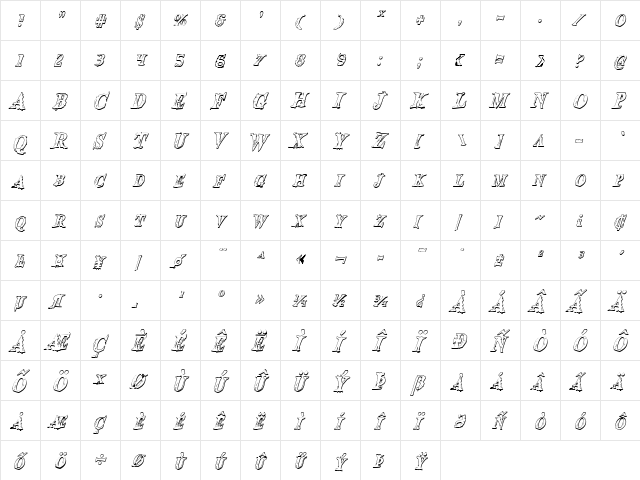
Blood Crow Shadow Condensed Italic Condensed Italic
Design Context for Blood Crow Shadow Condensed Italic Typeface
Blood Crow Shadow Condensed Italic leans into the macabre with letterforms designed to disturb and intrigue in equal measure. The dynamic lean of this cut emphasises speed and emphasis in any layout.
Perfect for anything that needs to unsettle — game titles, horror branding, and macabre invitations.
Font Pairing: Pair with a clean neutral sans-serif for body copy to let Blood Crow Shadow Condensed Italic's character lead without overwhelming the composition.
Pro Tip: Use Blood Crow Shadow Condensed Italic at larger display sizes for maximum impact. Consider generous tracking to let the disturbing character of each letterform breathe.